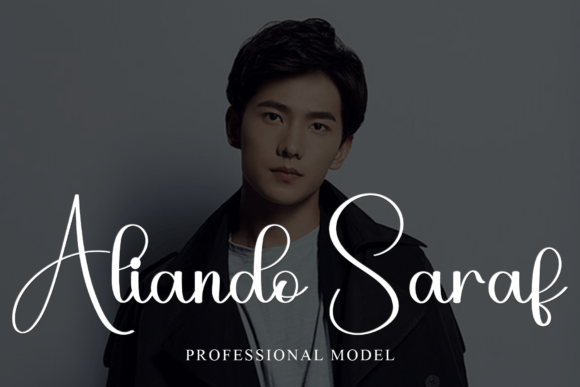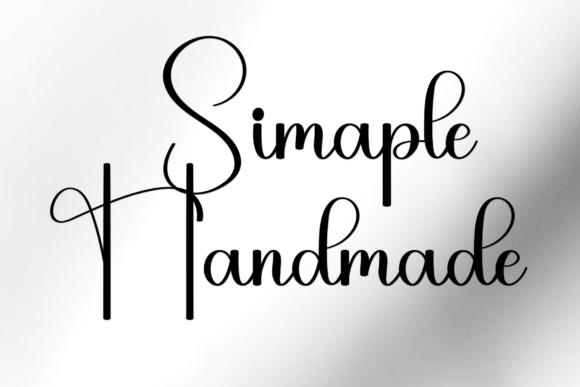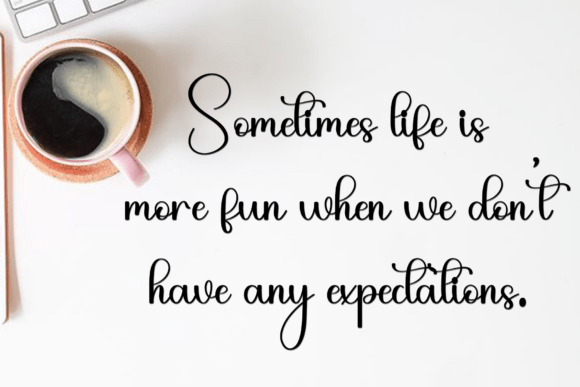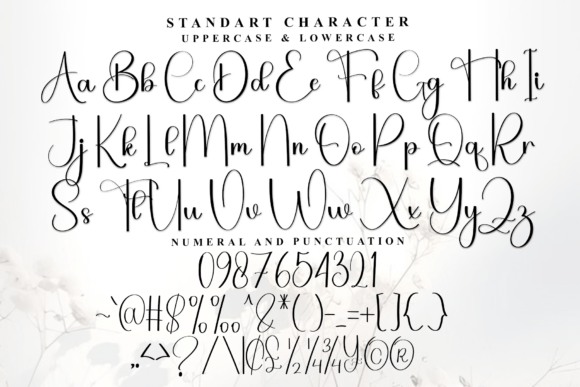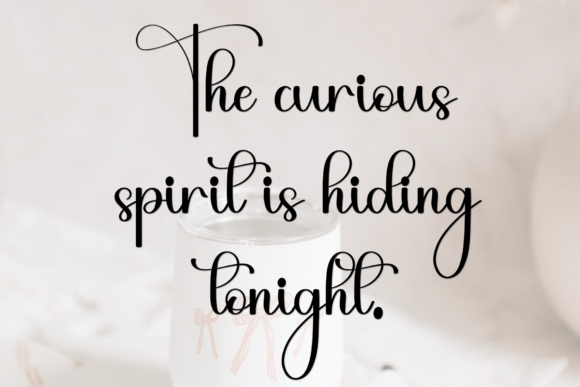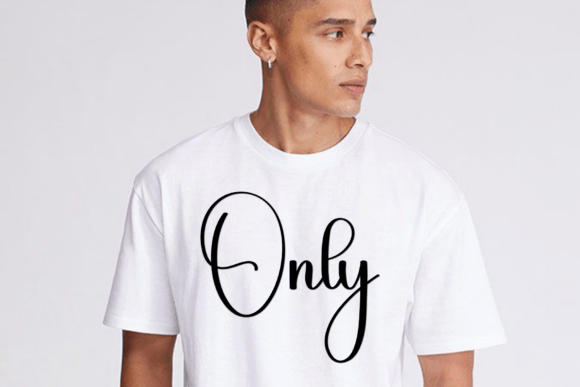
Introducing Bestfriend Font: The Ultimate Holiday Typeface
The holiday season is upon us, and what better way to get into the spirit than with a festive and merry typeface? Look no further than Bestfriend Font, a decorative and whimsical font that’s perfect for adding a touch of enchantment to your designs. Whether you’re a designer, crafter, or simply someone who loves the magic of the holiday season, Bestfriend Font is sure to bring a cheerful and nostalgic ambiance to your words.
Bestfriend Font is a carefully crafted typeface that’s designed to capture the spirit of the holiday season. With its decorative elements and whimsical flair, it’s the perfect addition to any holiday-themed project. From greeting cards and gift tags to festive posters and social media graphics, Bestfriend Font is sure to add a touch of magic to your designs.
As a designer or crafter, you’re always on the lookout for unique and versatile fonts to add to your collection. Bestfriend Font is a fantastic addition to any design library, offering a wide range of possibilities for creative expression. Whether you’re creating custom stationery, holiday-themed crafts, or festive decorations, Bestfriend Font is the perfect choice.
One of the best things about Bestfriend Font is that it’s PUA encoded, which means you can access all of the amazing glyphs and ligatures with ease. This makes it simple to add decorative elements and special characters to your designs, giving you even more creative freedom to experiment with different styles and effects.
What You Can Create with Bestfriend Font
The possibilities are endless with Bestfriend Font! Here are just a few ideas to get you started:
- Create custom holiday greeting cards and gift tags that are sure to delight your friends and family.
- Design festive posters and social media graphics that capture the spirit of the holiday season.
- Make custom holiday-themed crafts, such as decorations, garlands, and gift wrap.
- Add a touch of magic to your digital designs, such as holiday-themed phone wallpapers and blog graphics.
Why Choose Bestfriend Font?
So why choose Bestfriend Font over other holiday-themed fonts? Here are just a few reasons:
- Unique and decorative design that’s sure to stand out.
- PUA encoded for easy access to glyphs and ligatures.
- Perfect for a wide range of holiday-themed projects.
- Easy to use and customize, even for beginners.
If you’re looking for a festive and merry typeface to add to your design library, look no further than Bestfriend Font. With its decorative elements and whimsical flair, it’s the perfect choice for any holiday-themed project. Whether you’re a designer, crafter, or simply someone who loves the magic of the holiday season, Bestfriend Font is sure to bring a cheerful and nostalgic ambiance to your words. So why wait? Download Bestfriend Font today and let your typography shine with the magic of the holiday season!